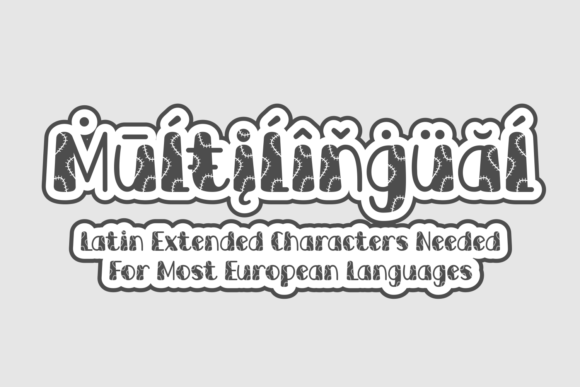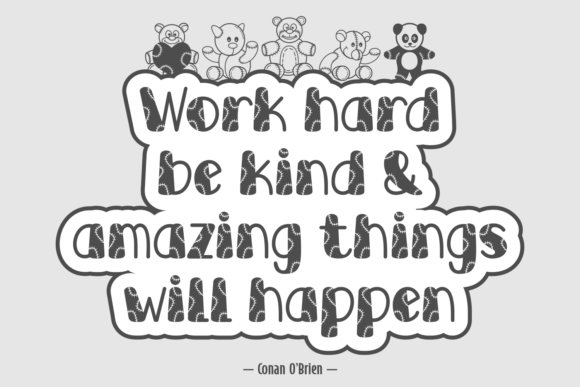
Chubby Dolls Font
Chubby Dolls Font is a free, unique, and cool font. This font is FREE to Download and suitable for designs such as t-shirts, sportswear, posters, logos, advertisements, clothing, and more.
Chubby Dolls Font is a free, unique, and cool font. This font is FREE to Download and suitable for designs such as t-shirts, sportswear, posters, logos, advertisements, clothing, and more. Whatever the topic, this font will be a great asset to your font collection, as it has the potential to enhance any creation.